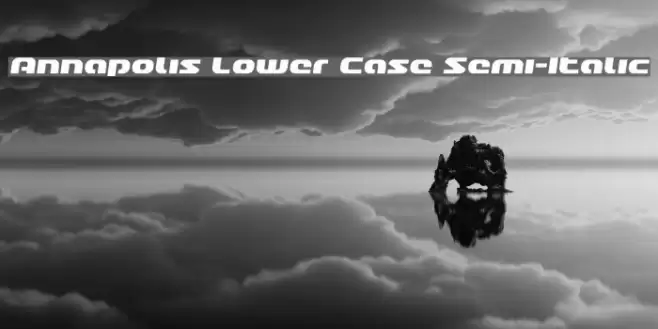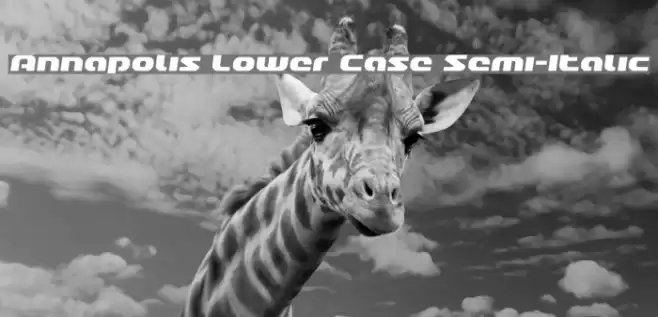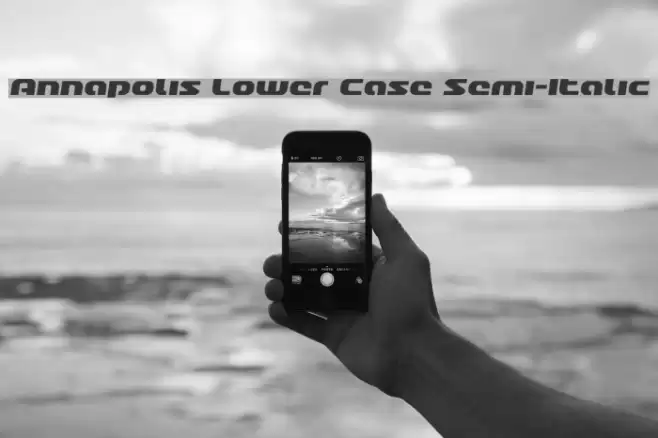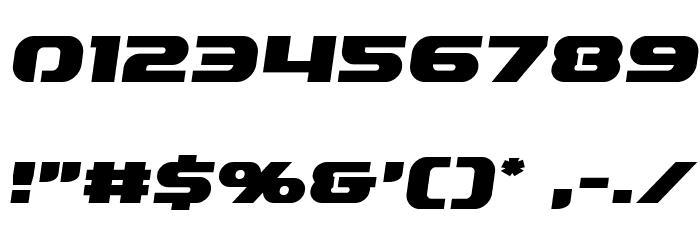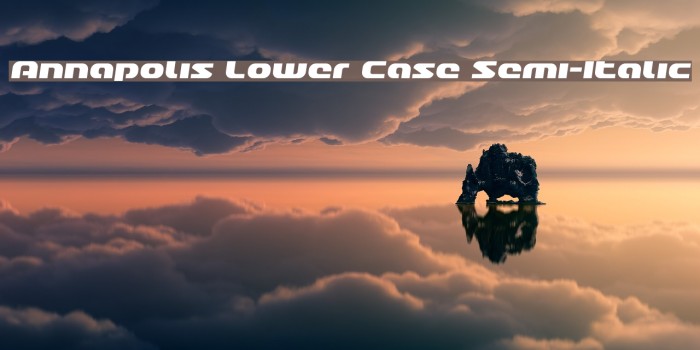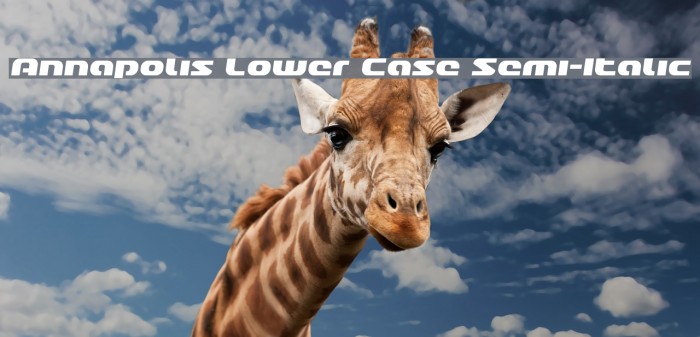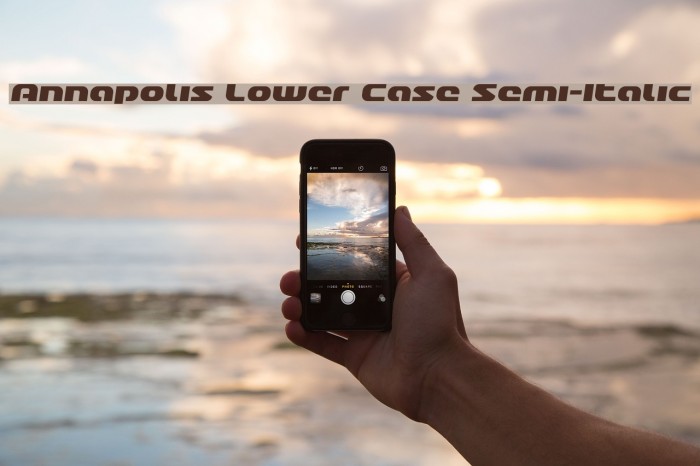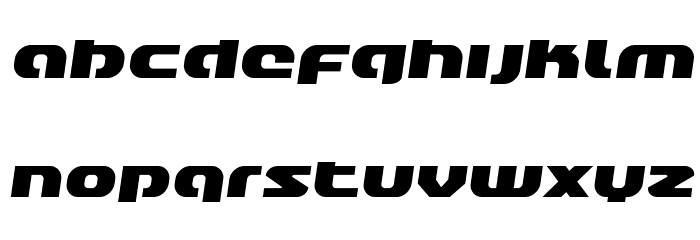
Annapolis Lower Case Semi-Italic Font
Annapolis Lower Case Semi-Italic Description
This font features a bold and dynamic style with semi-italic characteristics, giving it a sense of movement and energy. The letters are thick and robust, with a slight forward slant that adds a modern and futuristic touch. The uppercase and lowercase letters maintain a consistent weight, ensuring readability while still being visually striking. The numbers and special characters follow the same design principles, making the font versatile for various uses. Its boldness and unique style make it suitable for attention-grabbing headlines and logos.
A bold, semi-italic font with a modern and dynamic style from Sci-fi fonts.
- Proposed Projects: Ideal for branding, advertising, sports team logos, and modern web design.